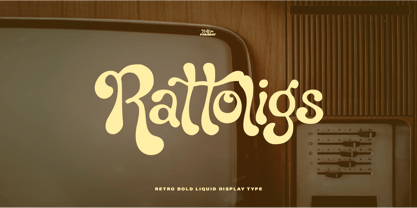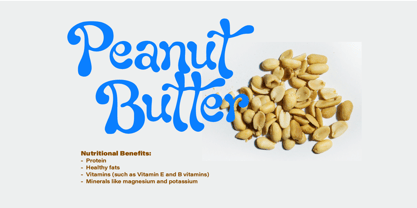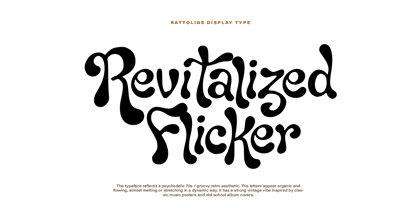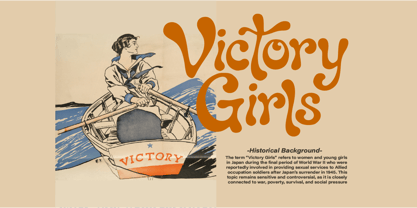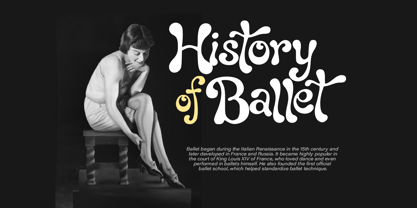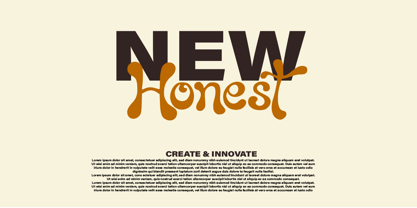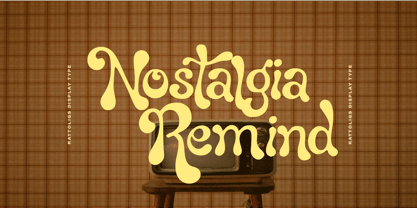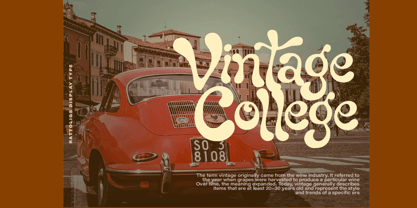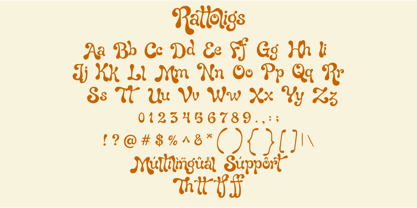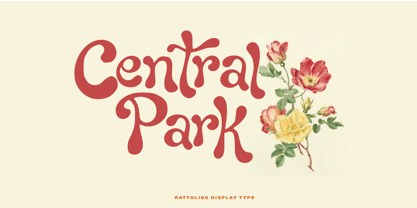
Rattoligs
The Rattoligs Font Family was designed by ryan creative and published by ryan creative. Rattoligs contains 1 styles. More about this family
This font has a retro psychedelic/groovy 70s style. The letterforms are fluid, flowing, and not rigid. They appear as if the letters are "melting" or wavy, giving a dynamic and artistic feel. FEATURES: Capital Letters, Lowercase Letters, Foreign Letter Support, Numbers, and Punctuation Ligatures Simple Installation Accessible in Adobe Illustrator, Adobe Photoshop, Adobe InDesign, and even Microsoft Word Full access without additional design software. Rattoligs is encoded with Unicode PUA, which allows full access to all additional characters without the need for special design software. Mac users can use Fontbook, and Windows users can use Character Maps to view and copy any additional characters for pasting into their favorite text editor/application. Thanks for visiting :)